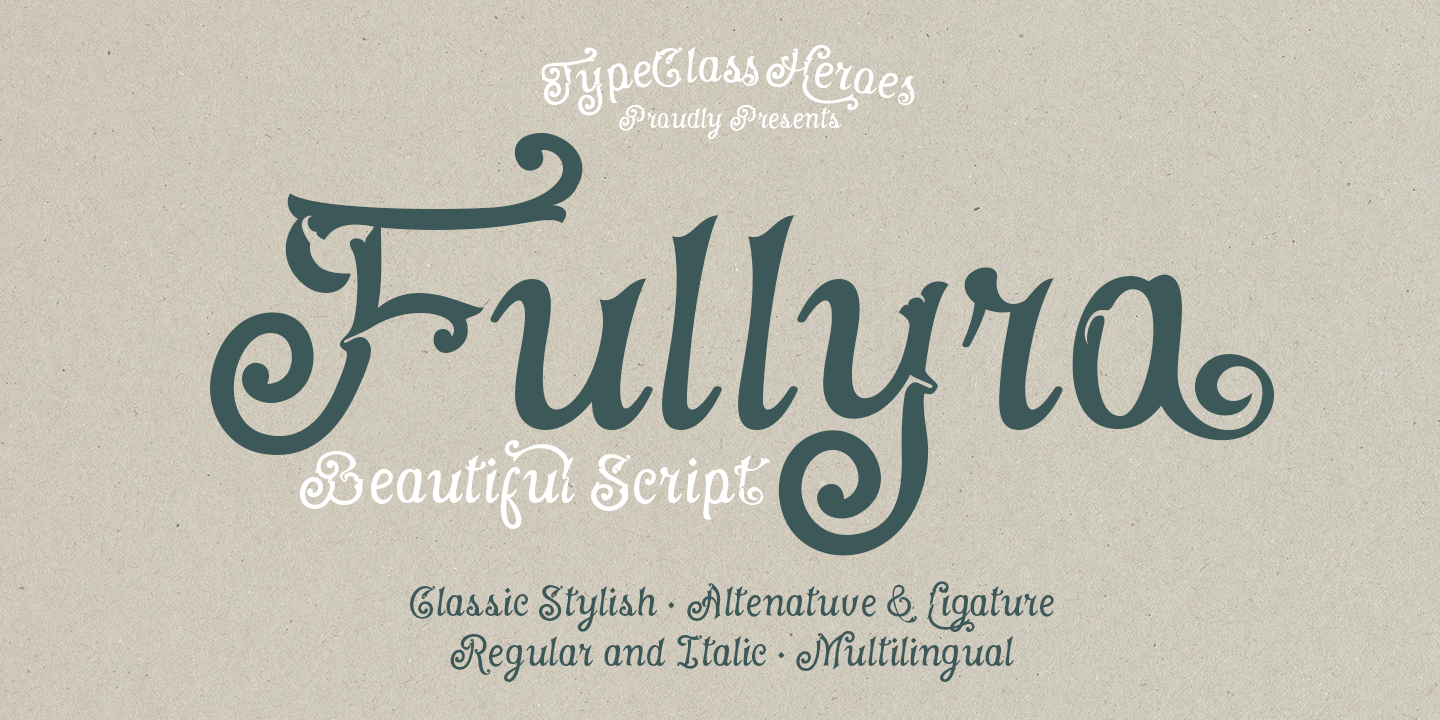
Fullyra Script
Fullyra Script is a brush script font family. This typeface has two styles and was published by TypeClassHeroes.
Hello I’m really excited to introduce Fullyra is a script with classic feel become an elegant wave and curly and this font has the potential to bring each of your creative ideas to the highest level. With style combine with ligatures and special alternative glyphs so you can create a lots with layouts and compositions. Fullyra brings a touch of luxury and bespoke custom typography to logos, websites, social media quotes, wedding branding, and many more.
- Alternative
- Ligature